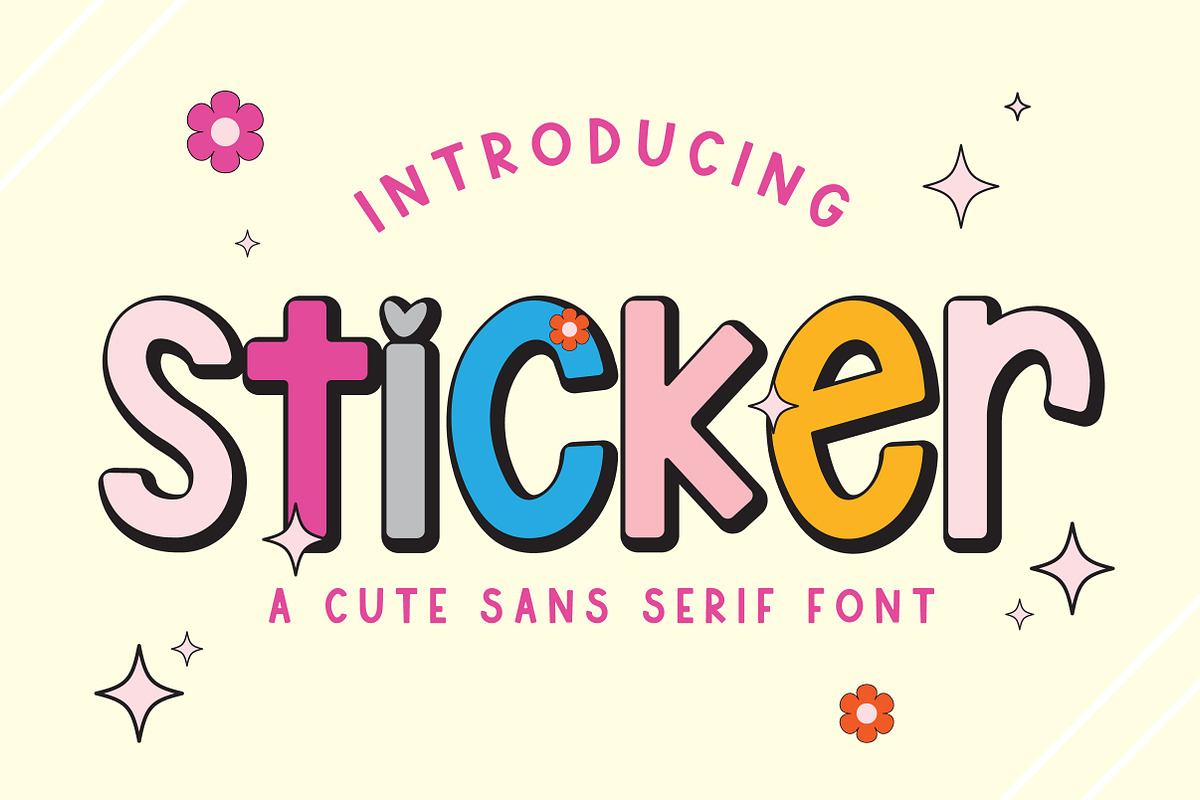
Sticker Font Free Download is a bold, playful typeface designed to pop—just like your favorite colorful stickers. With chunky shapes, rounded edges, and a bubbly vibe, this font is perfect for kids’ designs, fun branding, product packaging, YouTube thumbnails, social media posts, and, of course, actual sticker designs!
Its friendly, eye-catching style brings instant joy and approachability to any project. Whether you're creating labels, stationery, or digital content, Sticker Font makes your message stick in the best way possible.
Easy to read and full of personality, it’s a must-have for creatives who love vibrant, happy, and expressive typography.